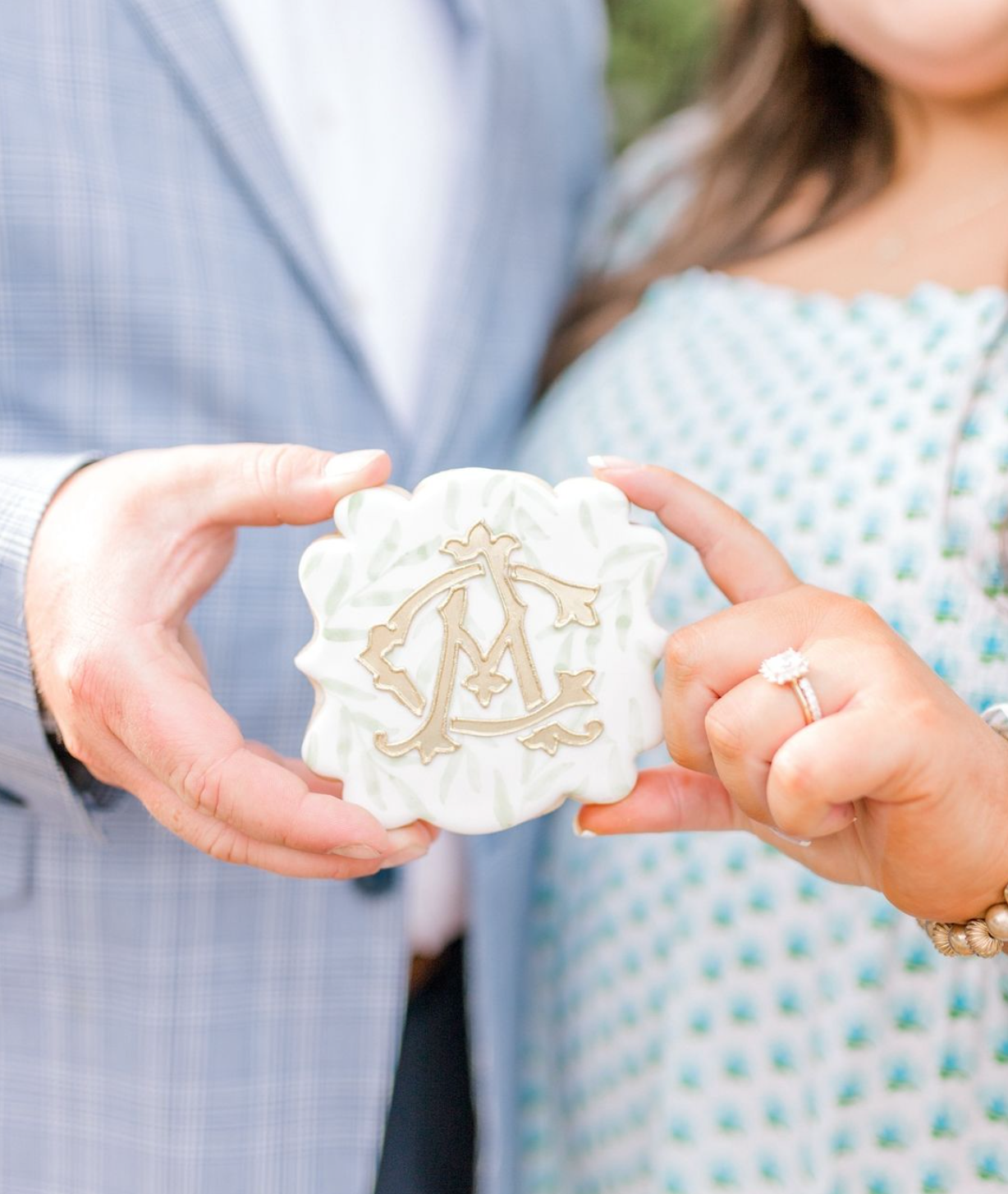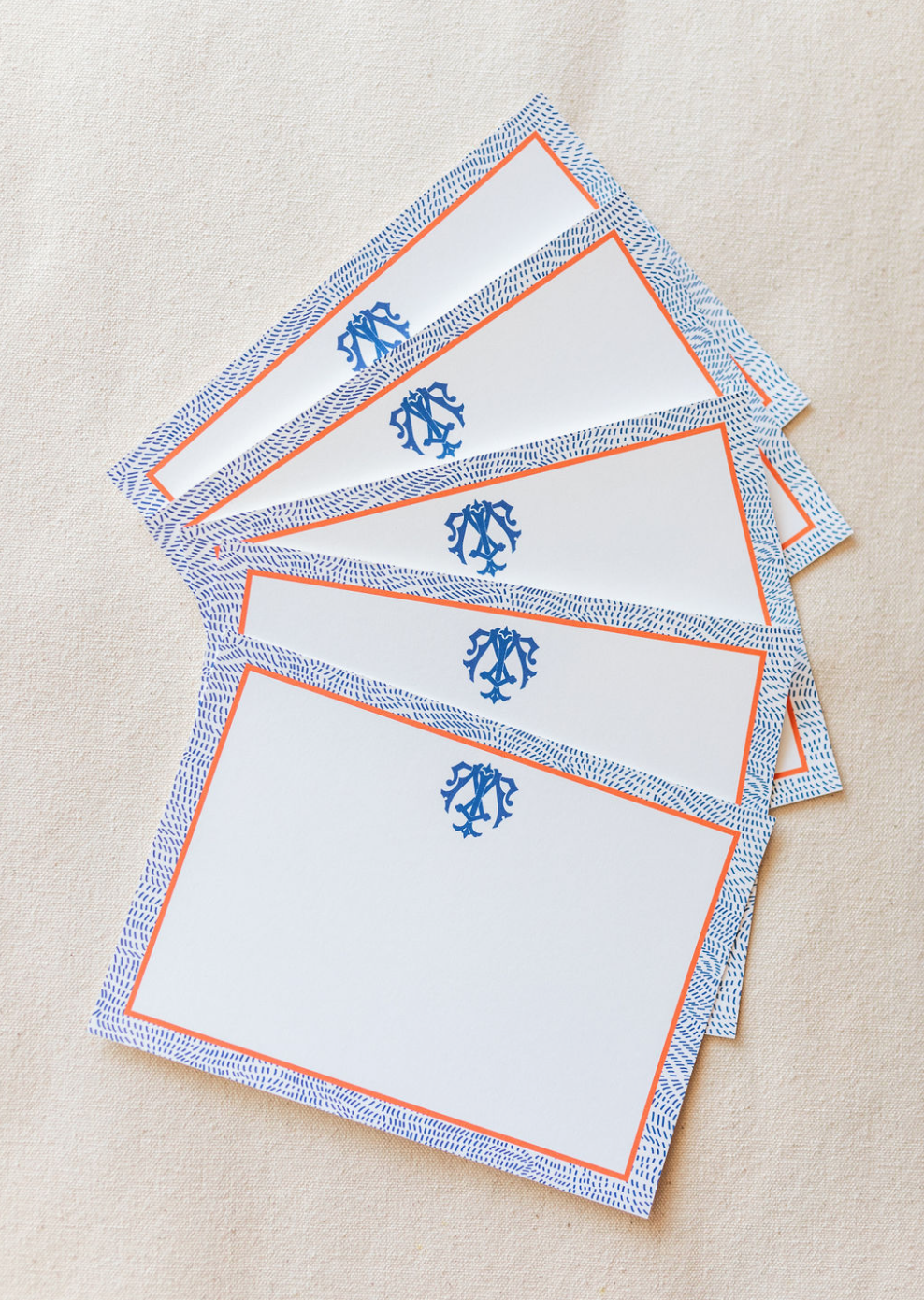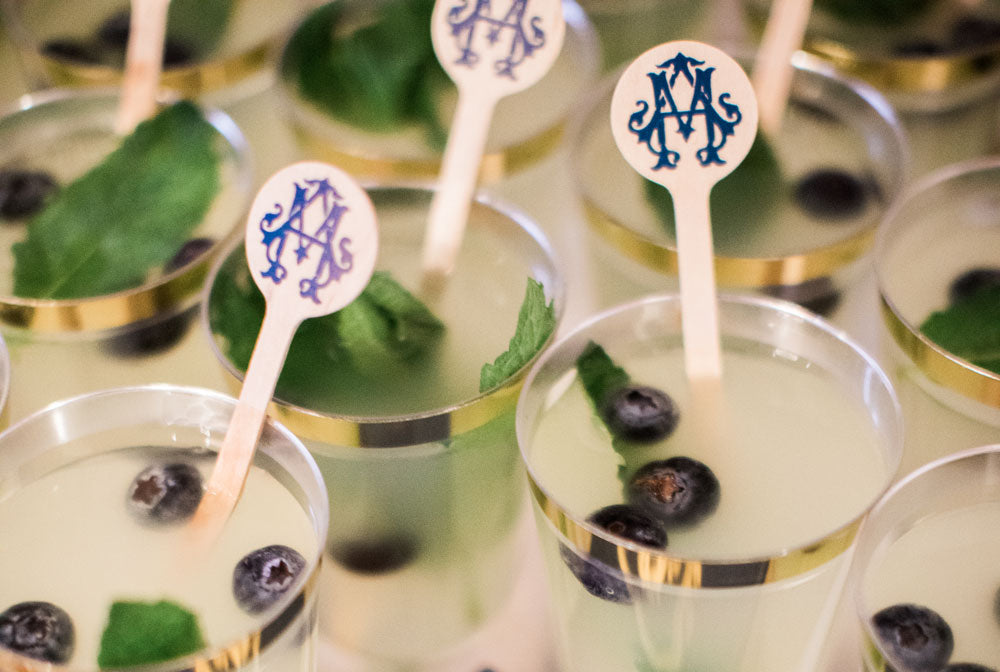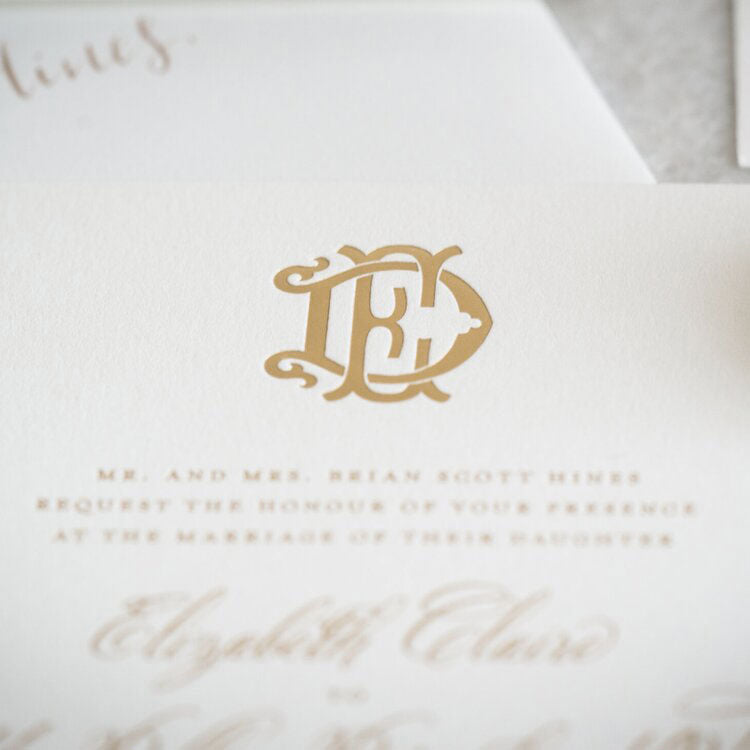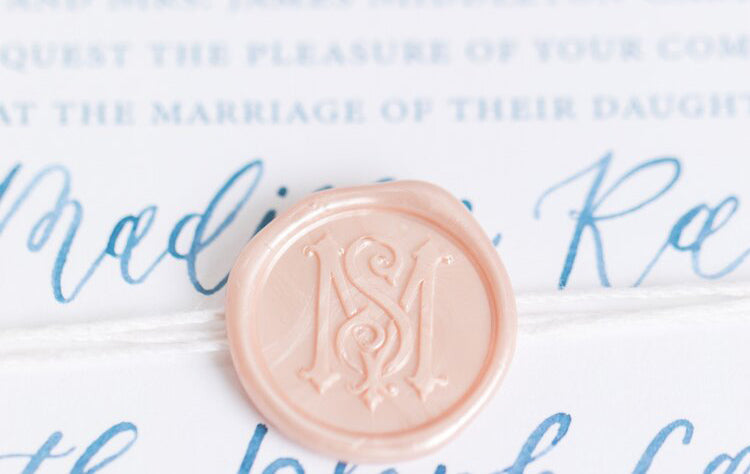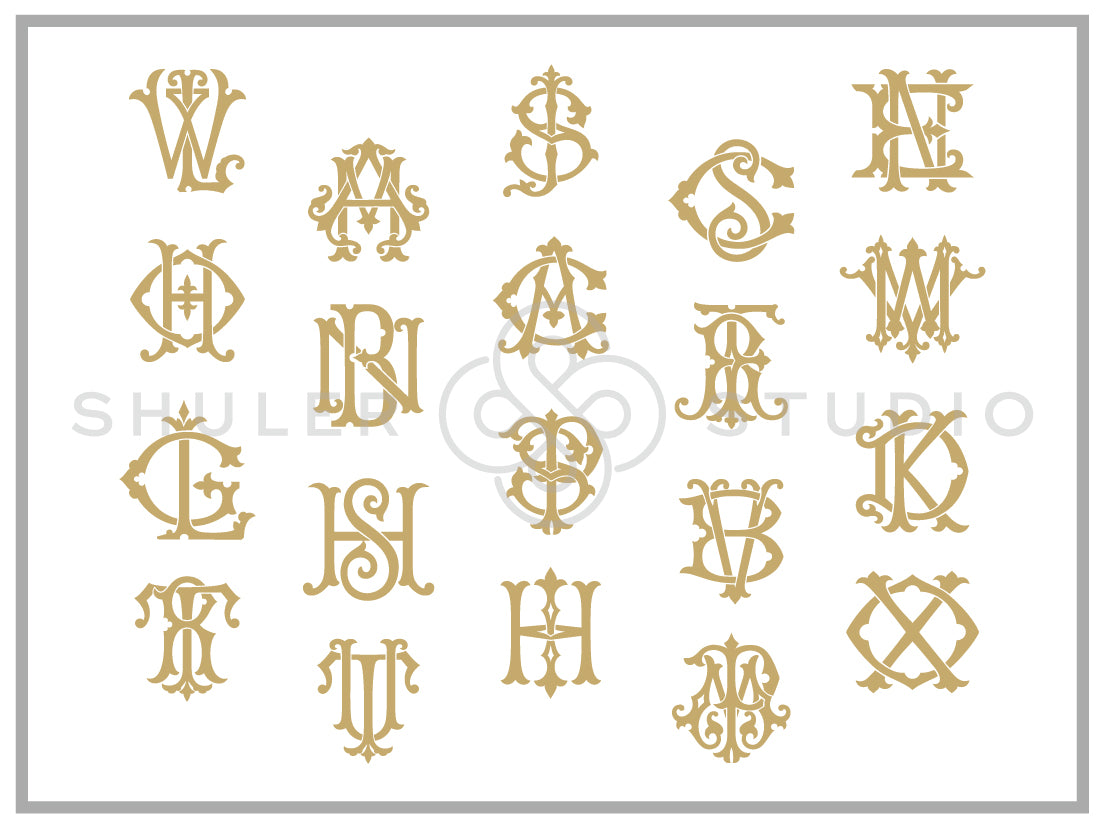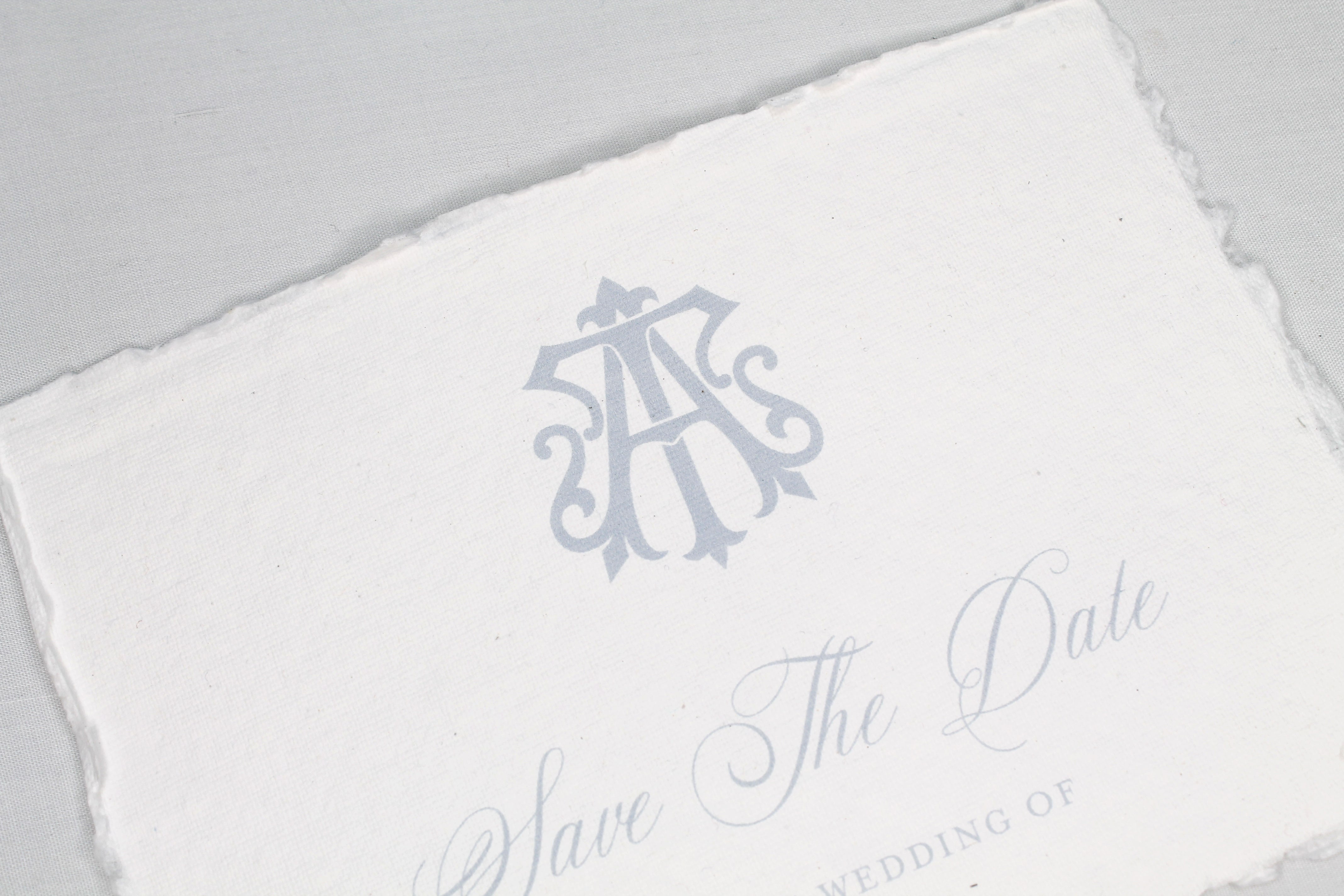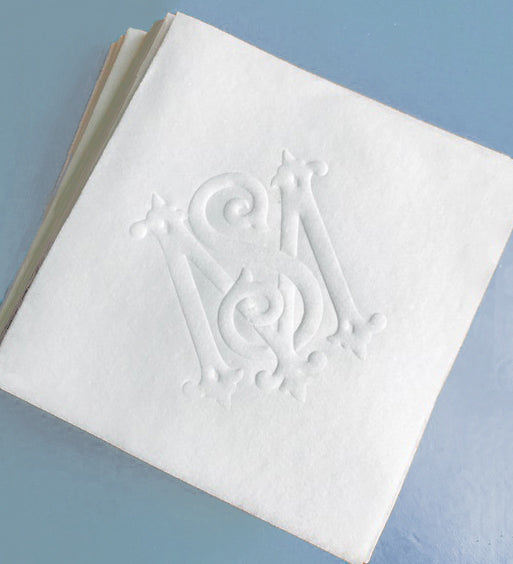
Monogram Chic Font for Print
Our Monogram Chic Font is an amazing collection (351 designs!) of interlocking 2-letter monograms created by simply keying in the 2 letters desired. Beautiful elements and amazing details make this the perfect font for distinctive personalization.
How Our Interlocking Fonts Work
Type 2 letters on your keyboard to create the interlocking monogram. That's it - 351 monogram designs at your fingertips!